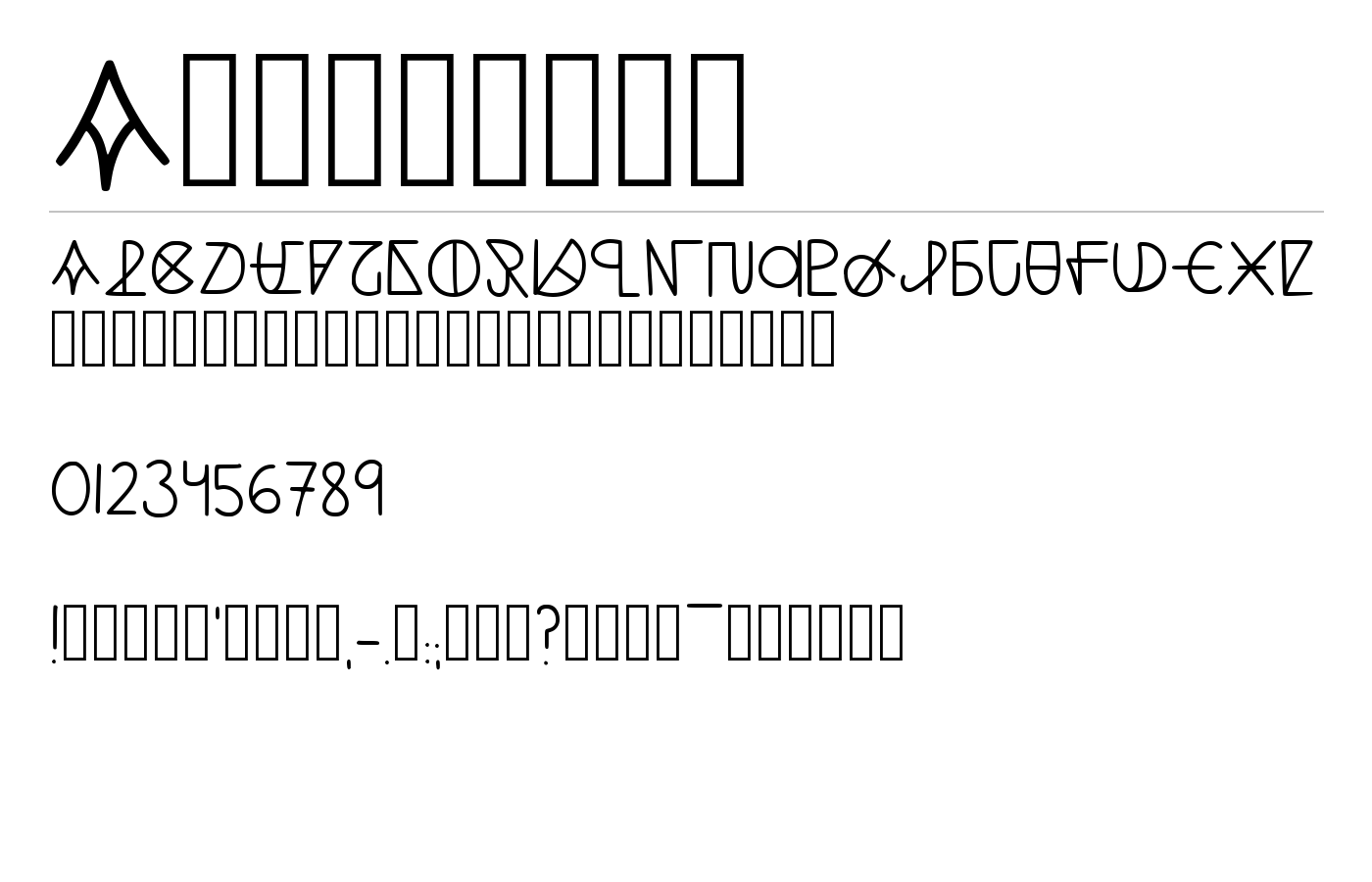
Angelican is a unique, decorative sans serif font characterized by its slender, geometric letterforms and consistent stroke weight, conveying a modern yet mystical vibe. Its unusual shapes and symbols, along with narrow spacing, make it ideal for creative branding, logos, and display use where a distinctive, futuristic style is desired. This font stands out best in eye-catching headlines or artistic projects rather than long body text.
Angelican Font
About Angelican Font